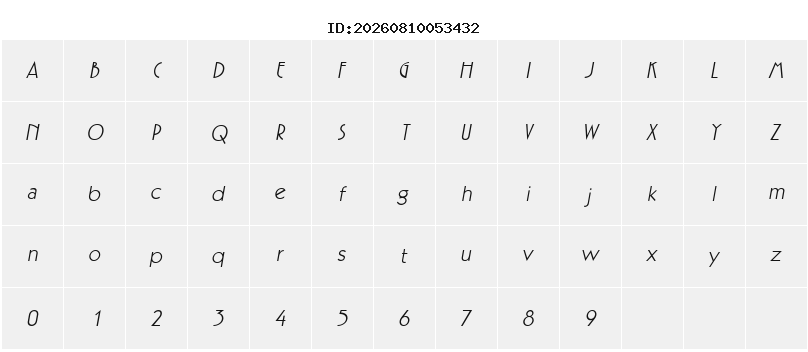
• Font Name: PSL Jarin
• Full Font Name: PSL Jarin Italic
About PSL Jarin.ttf
PSL Jarin.ttf is a modern, elegant sans-serif font designed for ultimate readability and visual harmony. Perfect for branding, headlines, web design, and print materials.